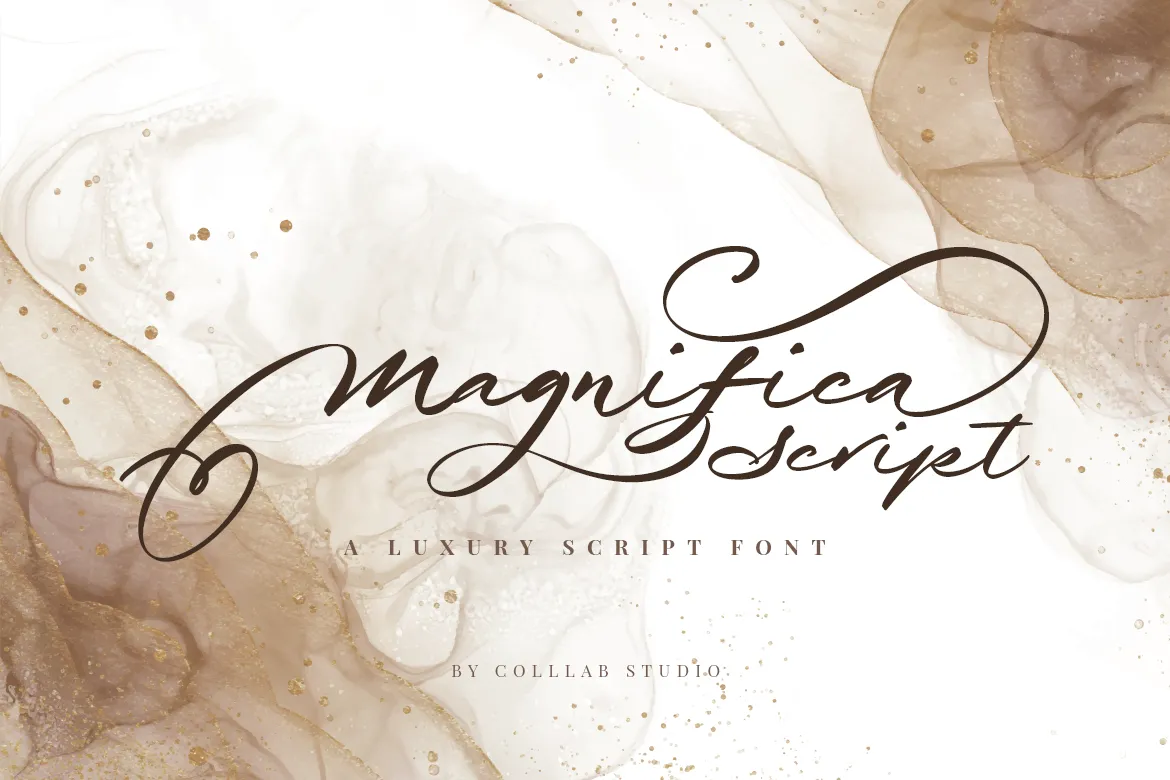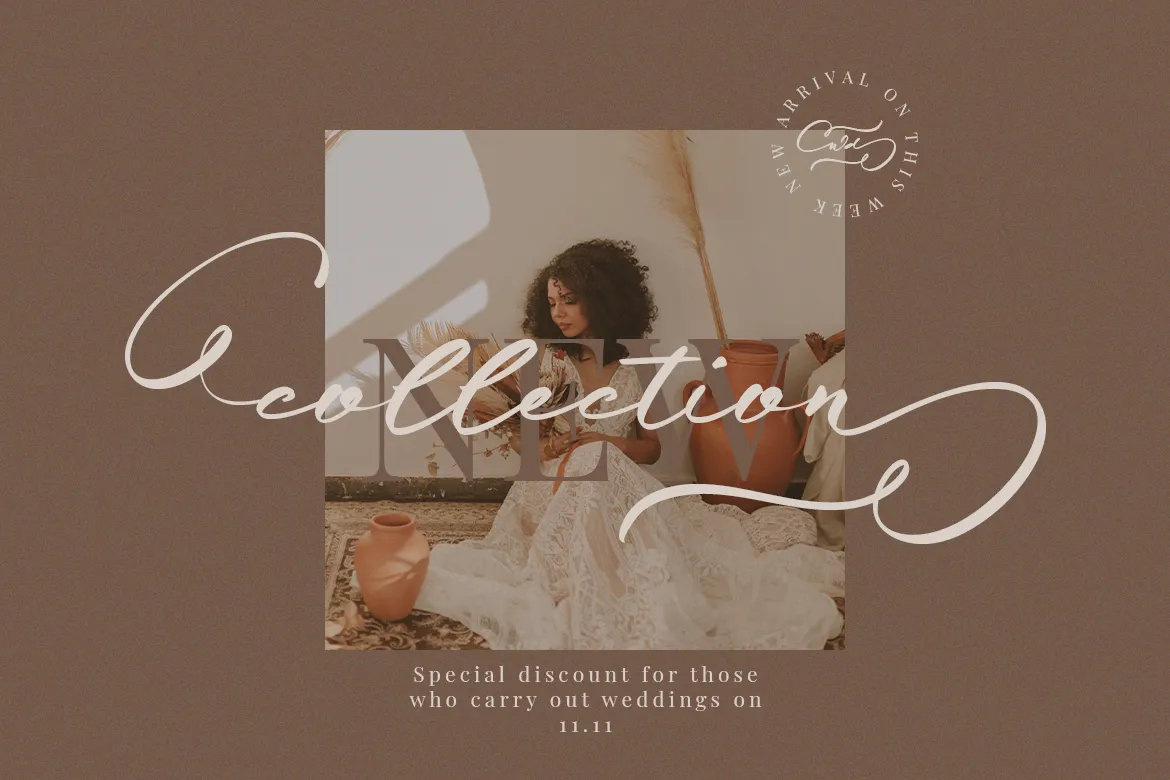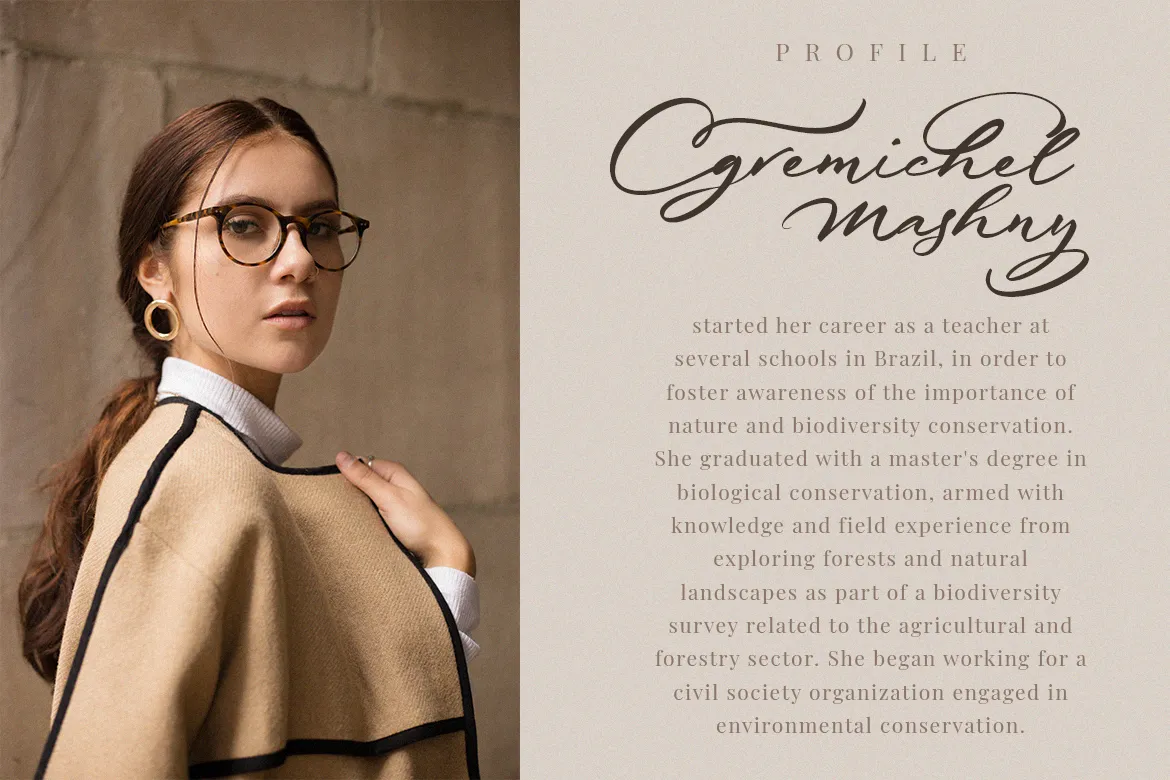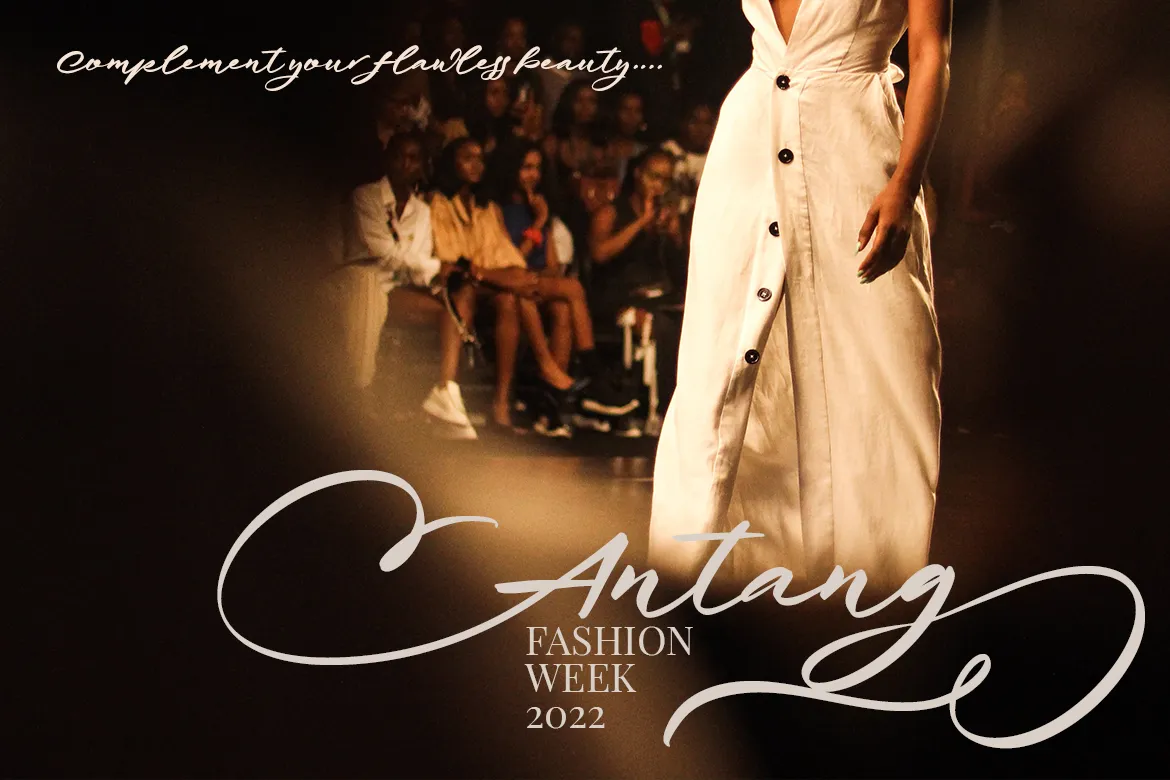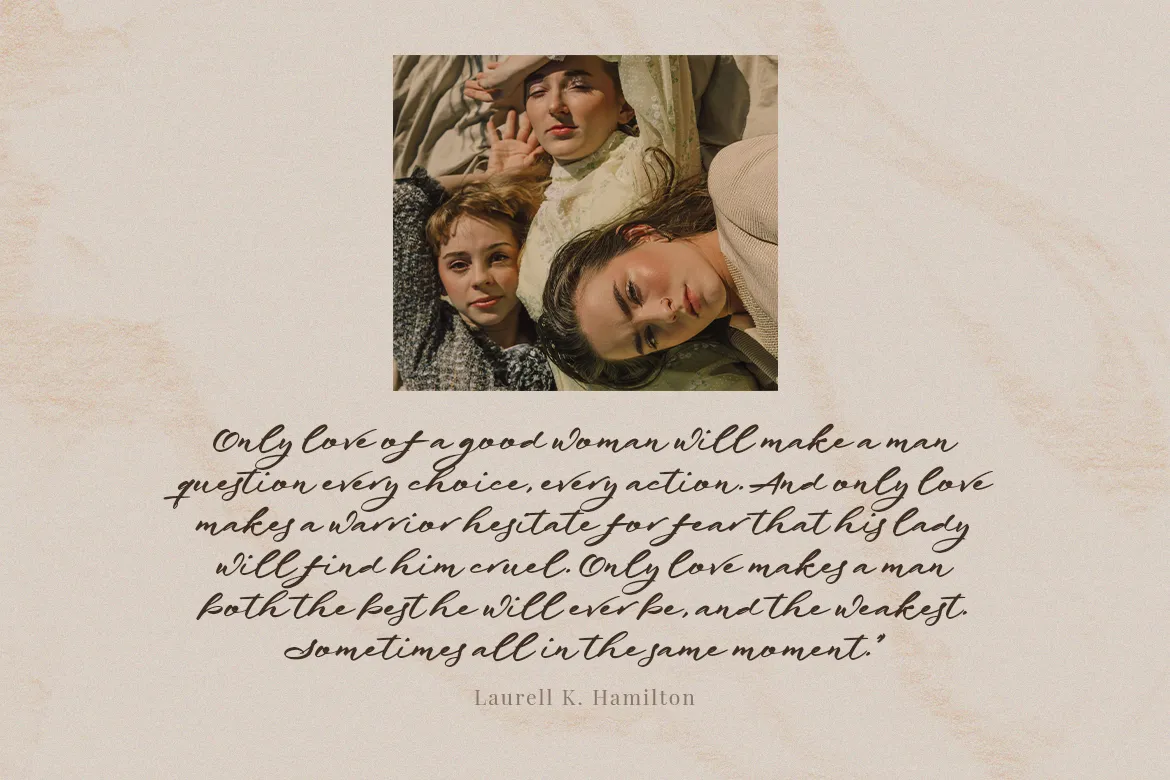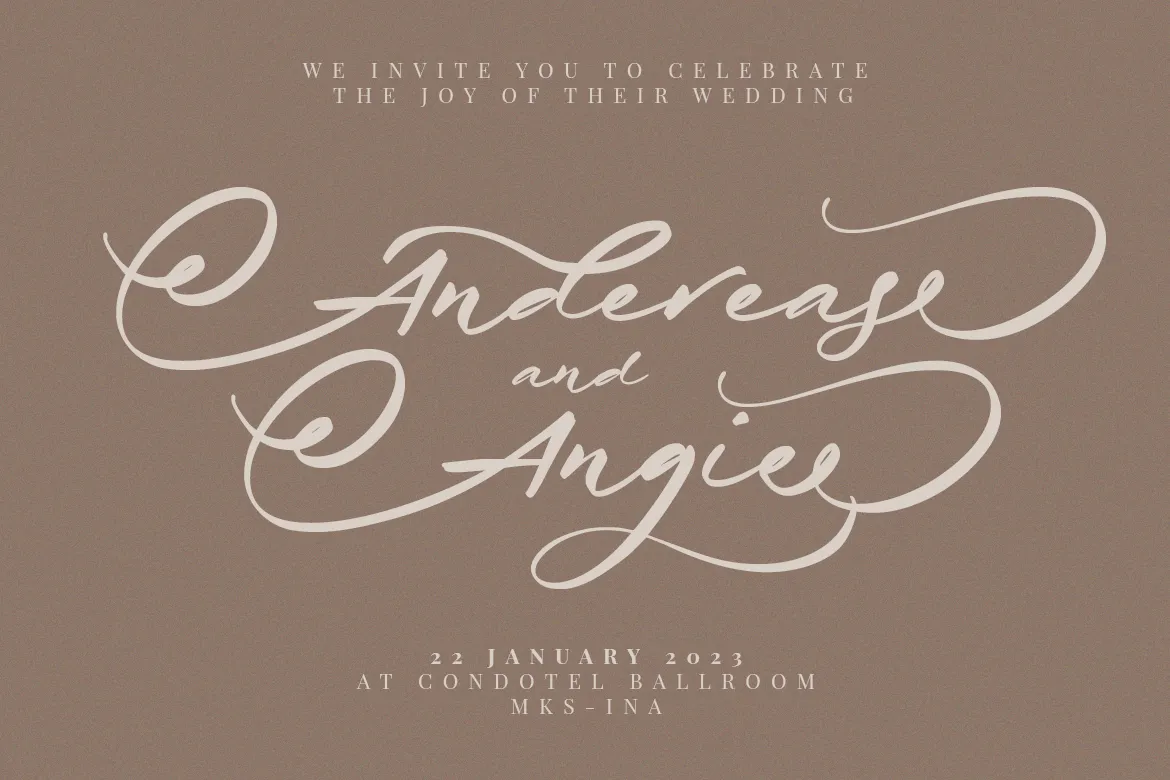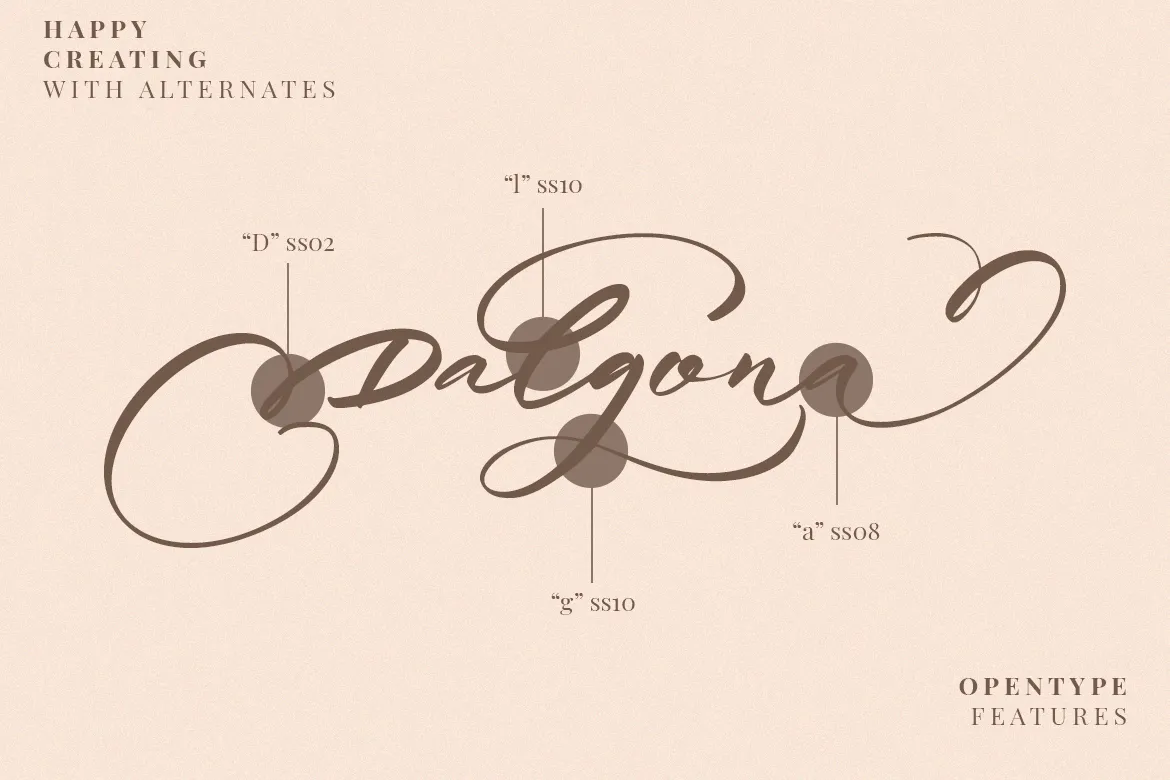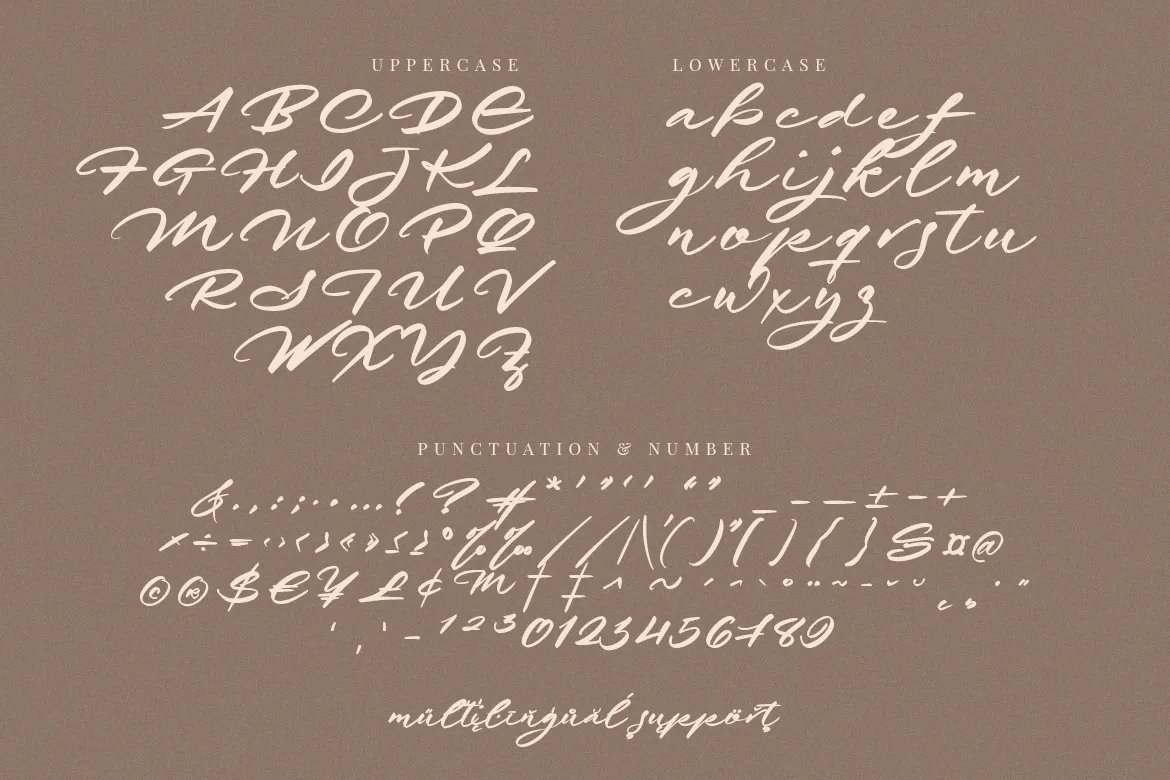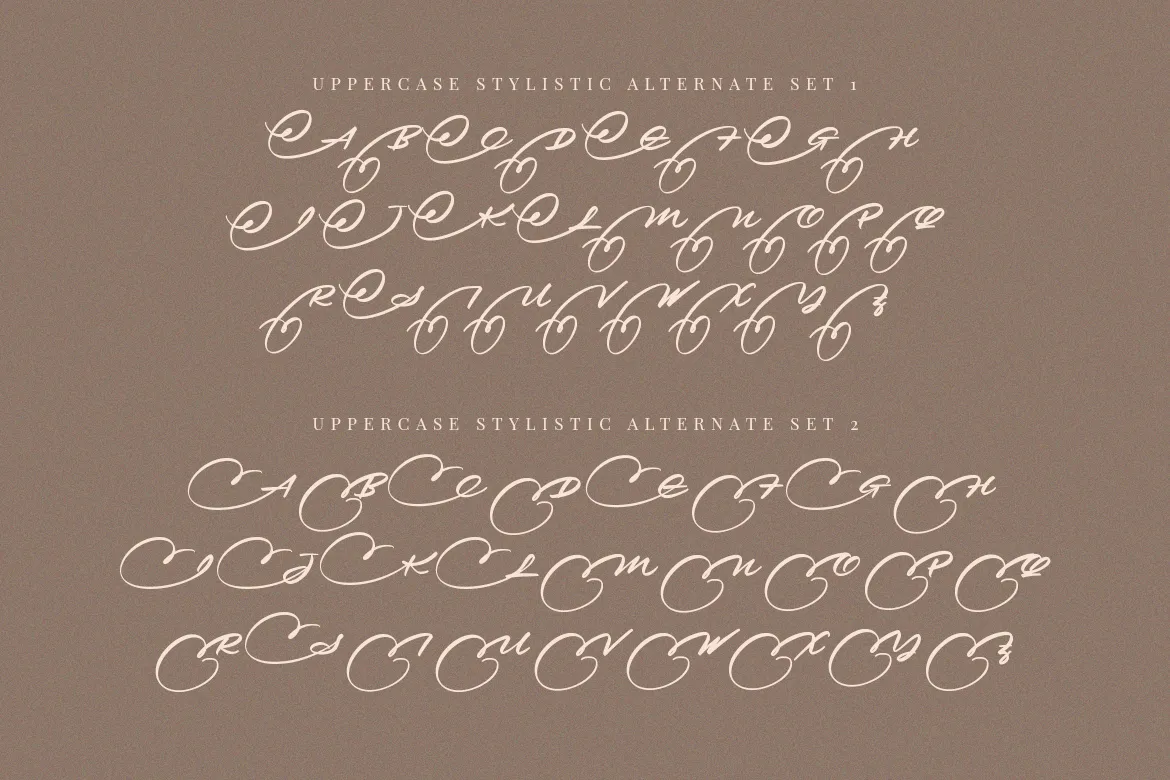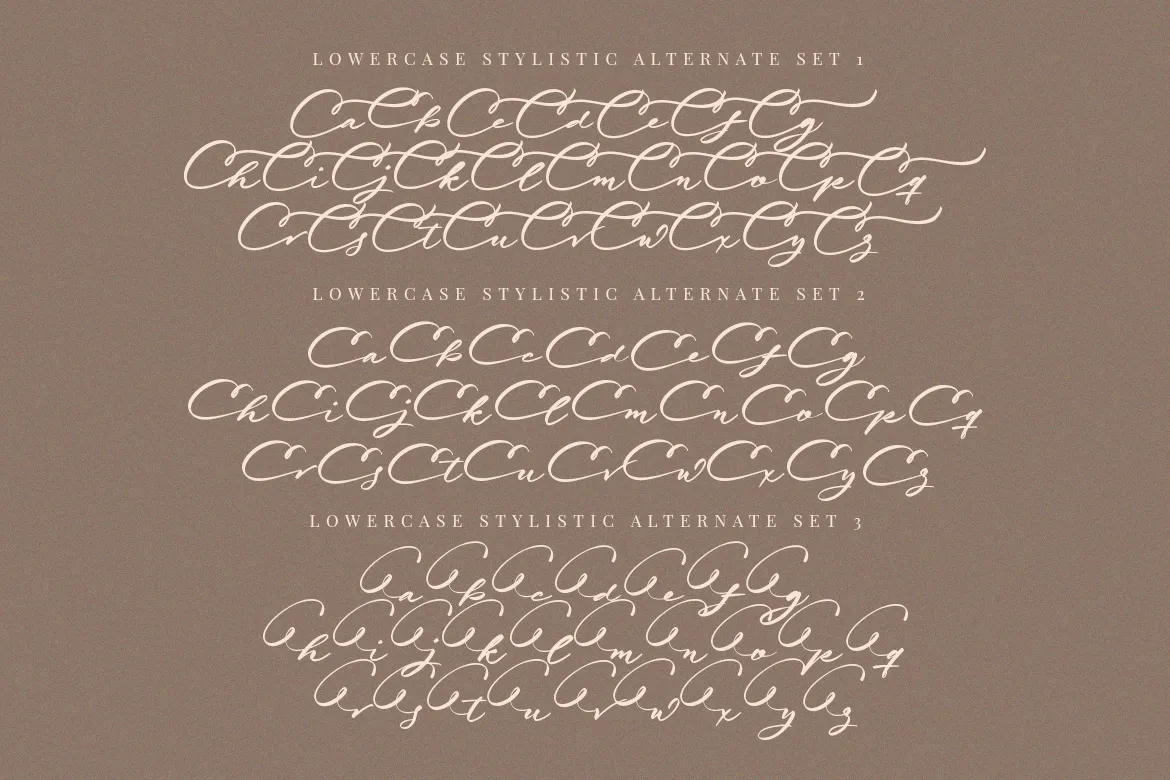
Magnifica Script
Magnifica Script is a luxury Script font, inspired by the elegance of calligraphy, and designed to add a hint of sophistication to any design. It features clean lines, a smooth transition between thick and thin strokes, and high-quality letterforms that are sure to please in your next project.
Magnifica Script features HUGE number of swashes and alternates that really make it stand out from other fonts. There are long swashes, short swashes, and even swash-like swashes that fit together seamlessly with the letters around them—and they’re all included in font packages!
• Swashes & Ligatures
• 9 Sets Stylistics alternates
Magnifica Script is a luxury Script font, inspired by the elegance of calligraphy, and designed to add a hint of sophistication to any design. It features clean lines, a smooth transition between thick and thin strokes, and high-quality letterforms that are sure to please in your next project.